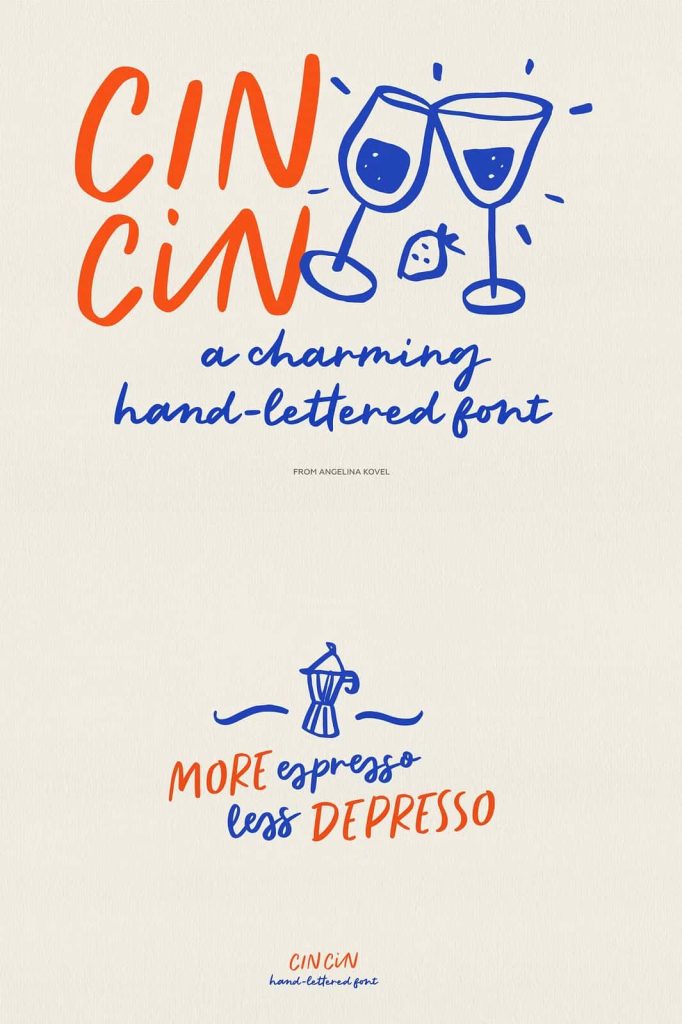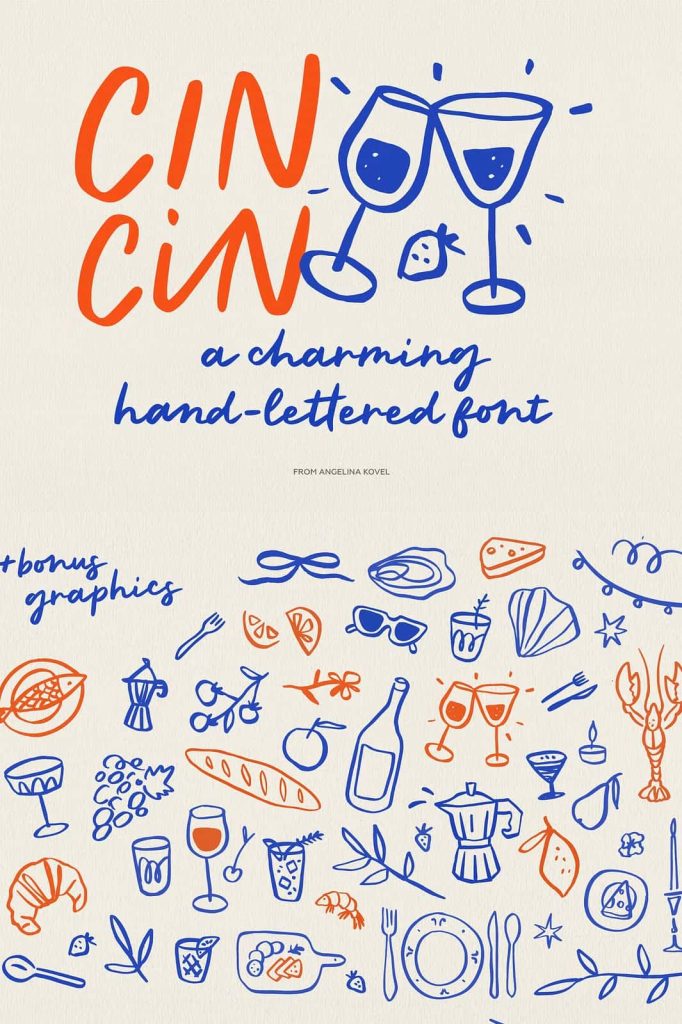
CINCIN: A Fun and Playful Font for Joyful Designs
CINCIN brings energy, charm, and creativity into every design with its fun and playful style. This font captures a lively spirit that instantly makes your work feel more engaging and expressive. Whether you design for personal projects or professional branding, CINCIN helps you communicate happiness and creativity through bold and cheerful typography.
Designed to Spread Fun and Positivity
CINCIN focuses on delivering a joyful visual experience. Its playful letterforms create a sense of movement and excitement, making it ideal for designs that need to feel lighthearted and inviting. Each character reflects a creative approach that avoids rigid structure, allowing the font to feel dynamic and full of personality.
Designers can use CINCIN to create content that stands out and connects emotionally with audiences. Its cheerful appearance makes it particularly effective in projects that aim to inspire smiles, excitement, or a sense of fun.
Perfect for Creative and Expressive Projects
CINCIN adapts easily to a wide range of creative applications. Its versatility allows you to use it across different mediums while maintaining a consistent playful tone. From printed materials to digital content, this font ensures that your designs remain visually engaging and memorable.
Its unique style works especially well in projects that require a casual and friendly look. Designers can rely on CINCIN to add character and originality without overwhelming the overall composition.
Popular Uses for CINCIN
- Children’s books with engaging and friendly typography
- Greeting cards that express warmth and happiness
- Logos for creative and lifestyle brands
- Posters with bold and playful visual impact
Enhance Branding with a Playful Identity
CINCIN helps brands create a distinctive and approachable identity. Its fun and expressive style makes it ideal for businesses that want to communicate creativity, friendliness, and energy. Designers can use it to craft logos and branding materials that feel unique and memorable.
This font works particularly well for brands in creative industries, children’s products, entertainment, and lifestyle sectors. It allows you to build a visual identity that feels authentic and engaging while maintaining a professional level of design quality.
Branding Applications
- Logo design with a cheerful and creative tone
- Packaging that feels fun and approachable
- Marketing materials that capture attention
- Social media graphics with a lively personality
Ideal for Books, Cards, and Posters
CINCIN performs exceptionally well in printed materials such as books, greeting cards, and posters. Its playful design enhances readability while adding visual interest, making it suitable for both short and longer text. Designers can use it to create layouts that feel dynamic and engaging.
In children’s books, CINCIN adds a sense of fun that keeps readers interested. In greeting cards, it helps convey emotions in a warm and friendly way. For posters, it delivers strong visual impact that draws attention and communicates messages effectively.
Versatility for Digital Content
CINCIN also works beautifully in digital environments. Use it for social media posts, website graphics, and promotional content that require a fresh and lively look. Its bold and playful style ensures that your designs stand out in crowded digital spaces.
The font’s adaptability allows you to experiment with different layouts and compositions. Whether you create minimal designs or colorful visuals, CINCIN helps you maintain a consistent and engaging aesthetic.
Why Choose CINCIN?
CINCIN stands out as a playful font that combines creativity, versatility, and emotional appeal. Its joyful design makes it a powerful tool for projects that aim to connect with audiences in a positive and memorable way. The font allows you to express ideas with energy and personality while maintaining clarity and readability.
If you want a typeface that brings fun and happiness into your designs, CINCIN provides the perfect solution. It helps you create work that feels vibrant, engaging, and full of life, ensuring that your message leaves a lasting impression.